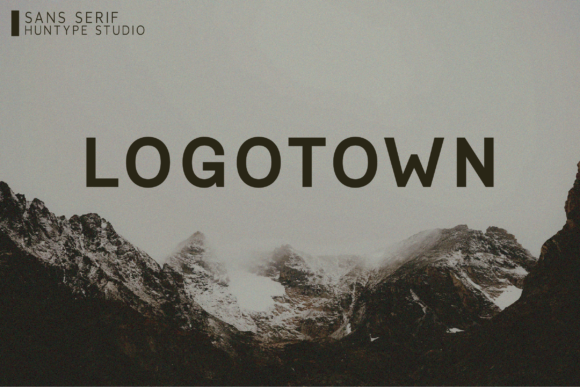
Introducing the Logotown Font, a Sans Serif Masterpiece Designed to Elevate Your Creations!
In a world of ordinary fonts, there exists a typographic gem that stands apart – Logotown Font, the ultimate choice for discerning designers seeking distinction. Created by the renowned Huntype, this extraordinary Sans Serif font family is not just a collection of letters; it's an expression of creativity, a tool that transforms your designs into captivating visual experiences.
Fashioned with meticulous attention to detail, Logotown Font boasts smooth and clean lines, exuding an air of sophistication and elegance. Its subtle contrast adds a touch of intrigue, making it the perfect choice for logos, branding, and web headings that demand attention.
With its versatility, Logotown Font effortlessly adapts to a myriad of design styles. Whether you're crafting a sleek and modern logo, a timeless brand identity, or a website that exudes professionalism, Logotown Font is your trusted companion.
Immerse yourself in the world of Logotown Font and discover a treasure trove of possibilities. Let your imagination soar as you create eye-catching logos that leave a lasting impression, branding that resonates with your audience, and web headings that entice and engage.
As you work with Logotown Font, you'll find that it's more than just a collection of characters; it's a catalyst for creativity, a gateway to a world of design excellence. Experience the joy of transforming ordinary words into captivating visuals, crafting designs that speak volumes without uttering a single word.